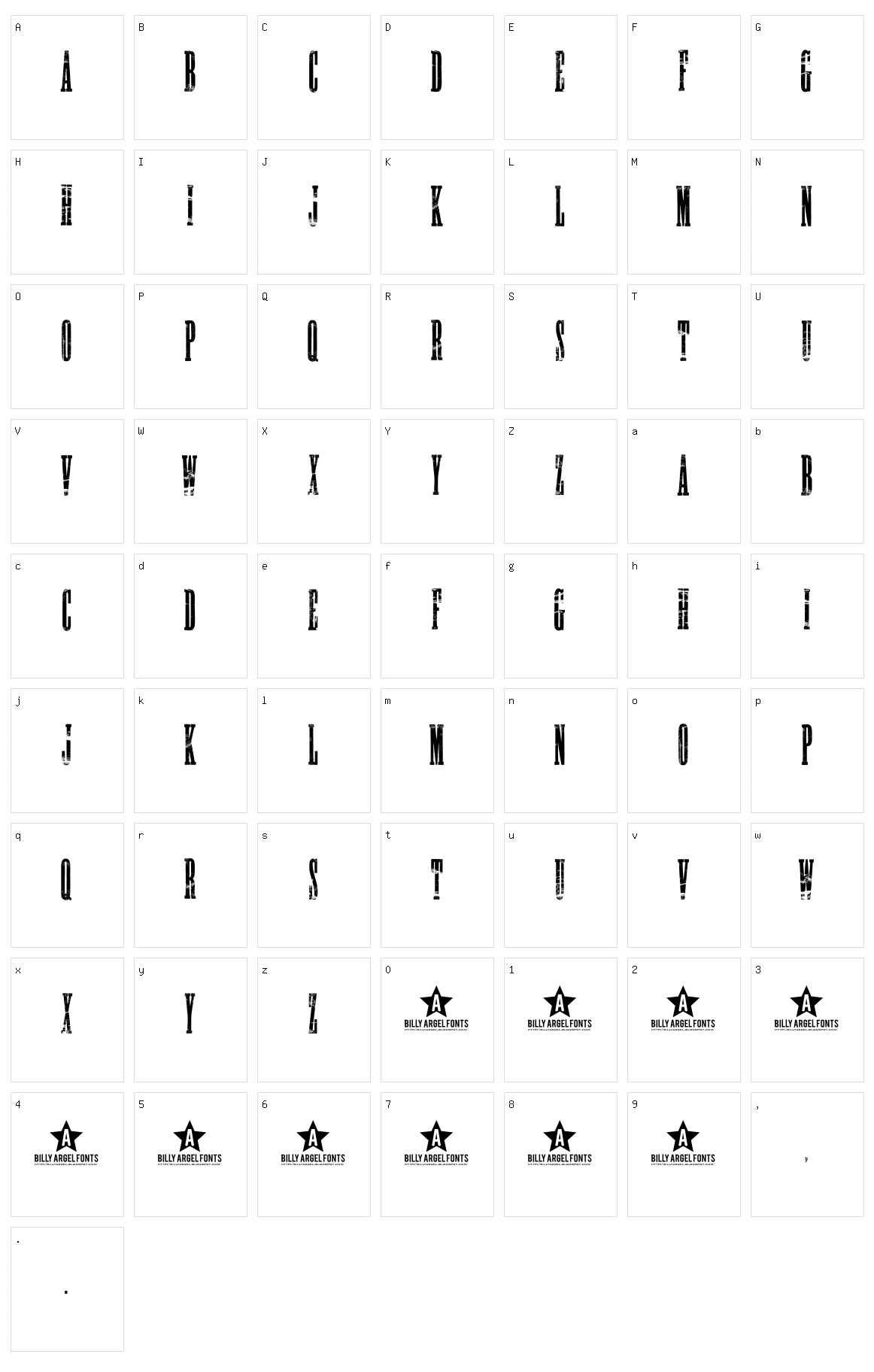
The free font Night Stalker is carefully designed by Billy Argel Fonts ®, showcasing a thoughtful balance of creativity and usability and falls under the Eroded font style. When you download the ZIP file, it contains only 541.86 KB of font files, making it lightweight and quick to download. Please review the license details below to understand permitted usage and distribution rights. If license information is not available, we recommend using this font for personal projects only or contacting the author directly for commercial usage permissions.